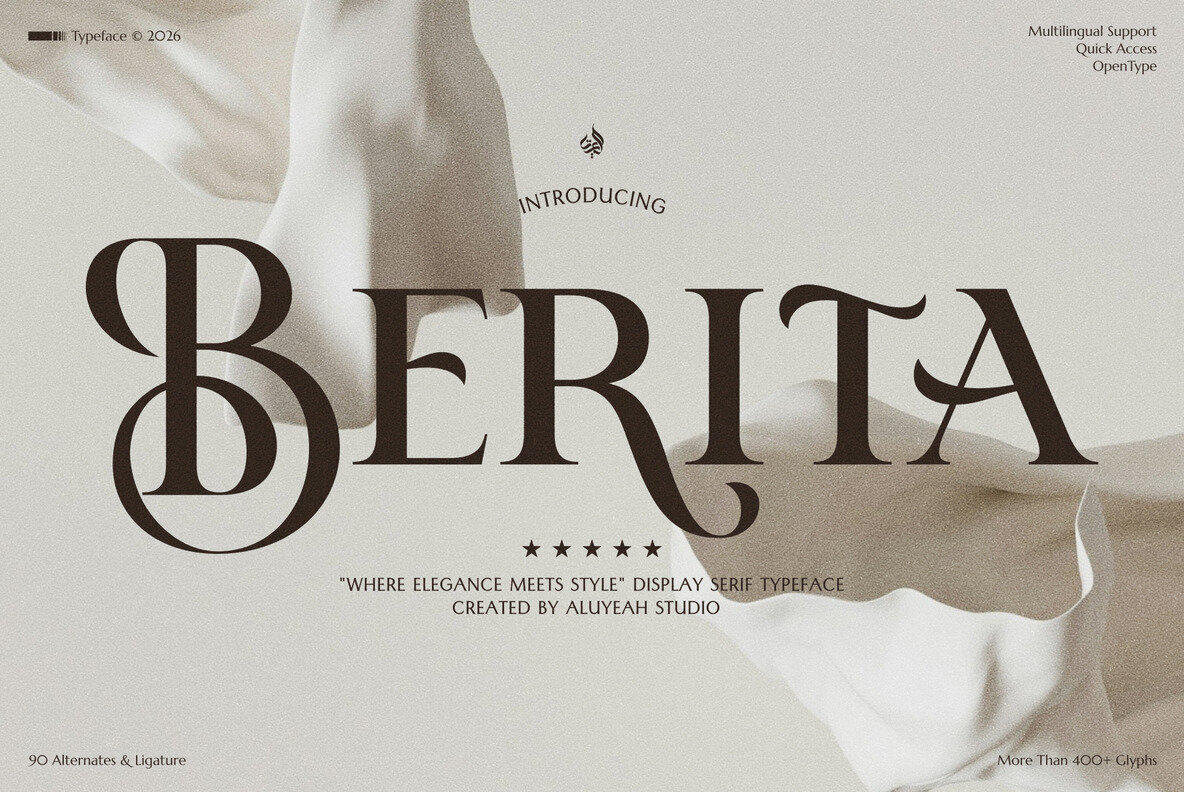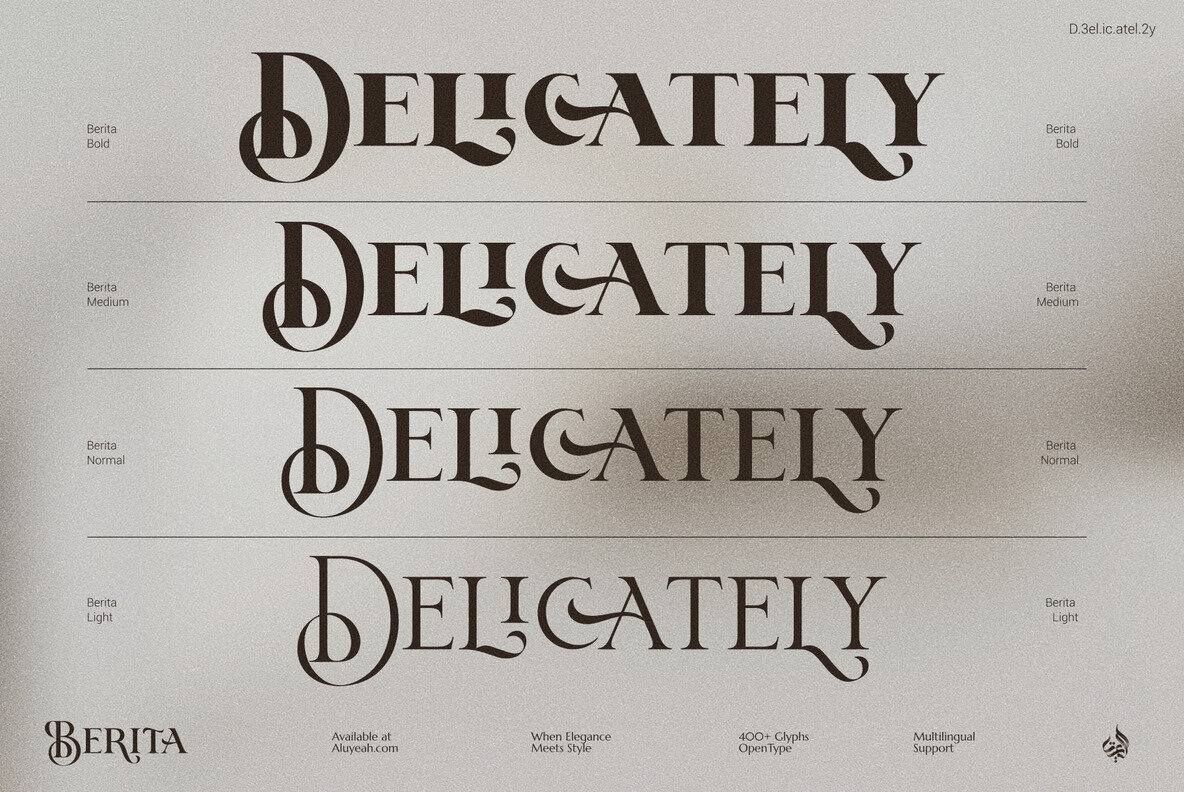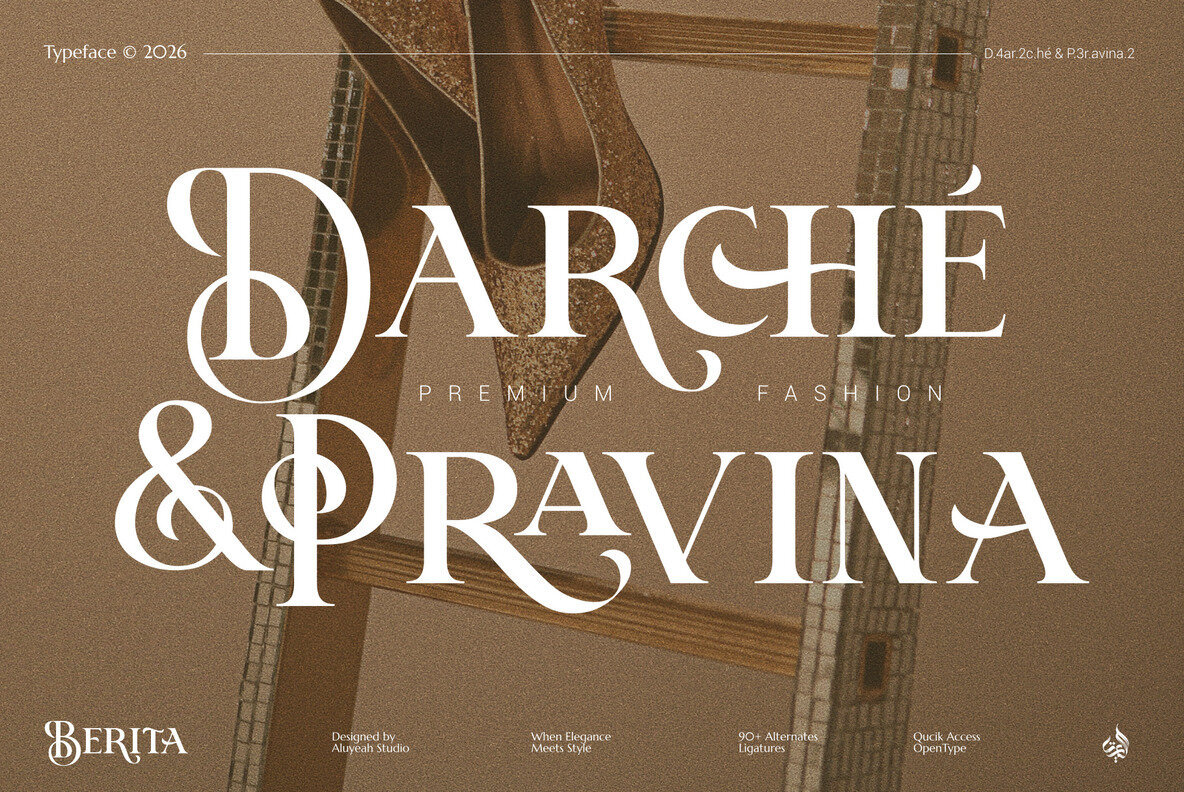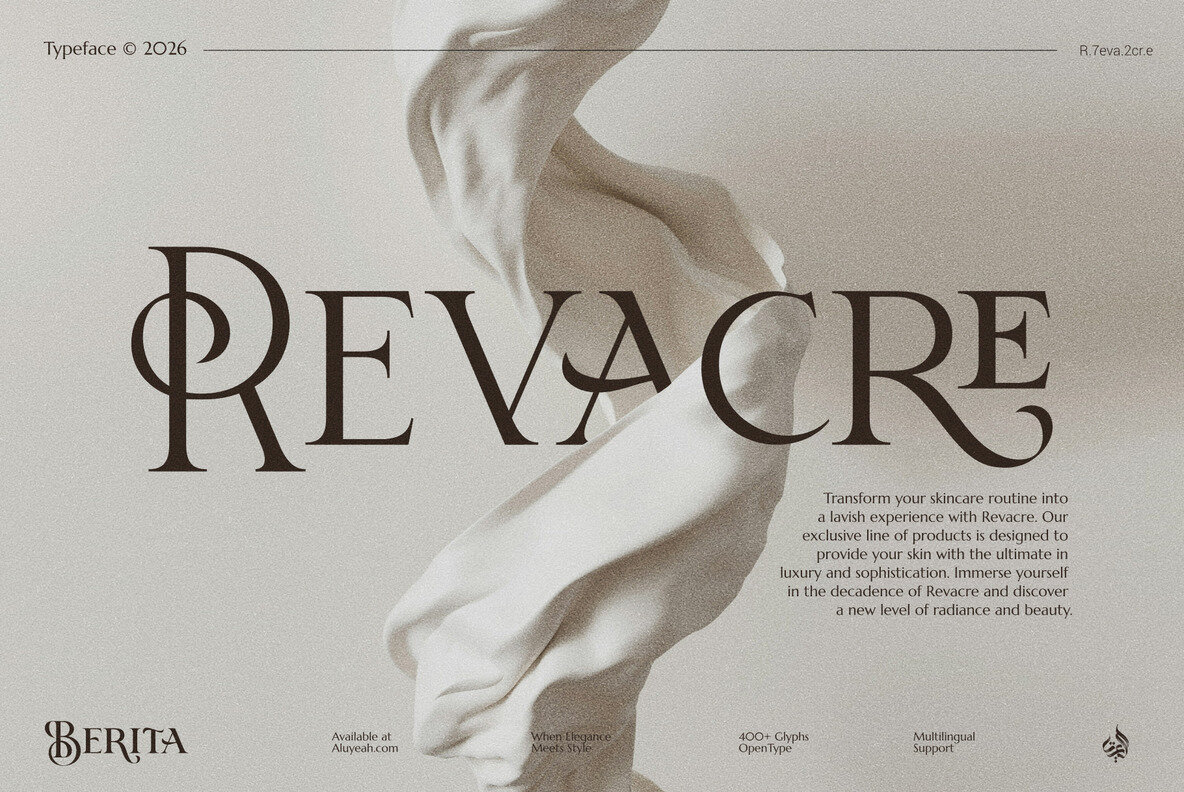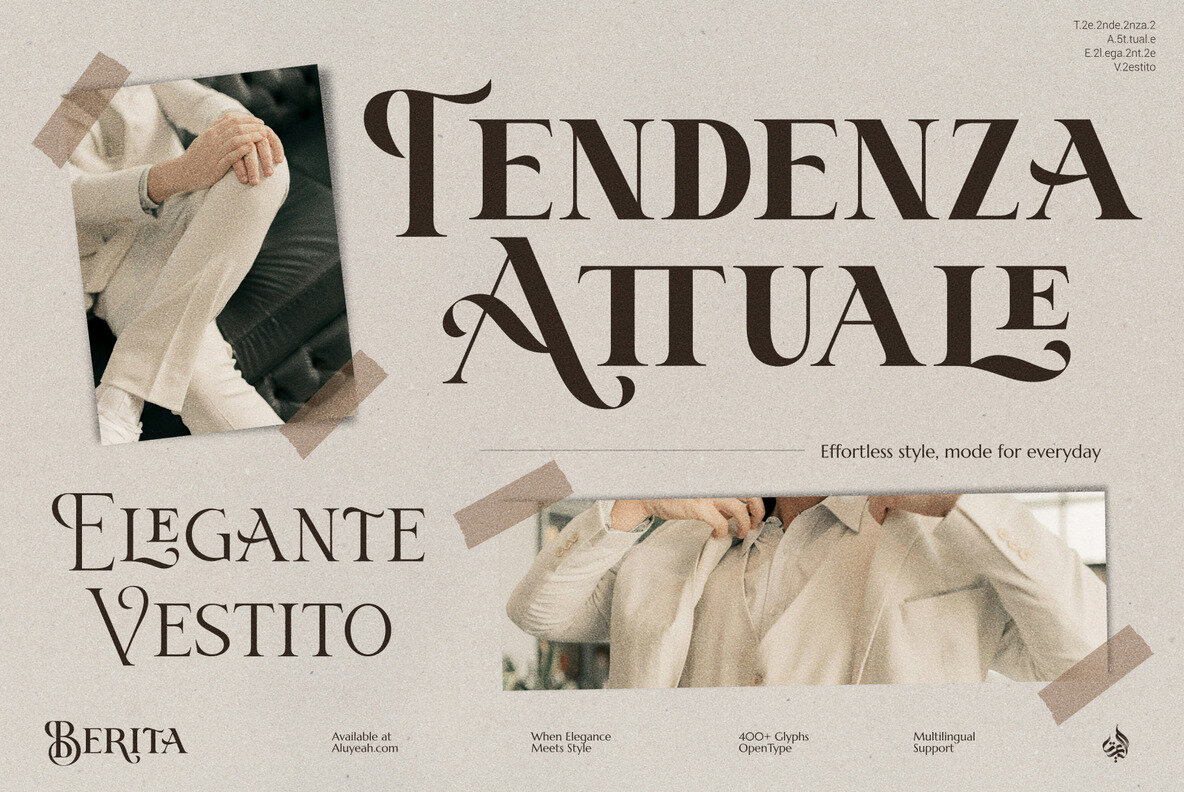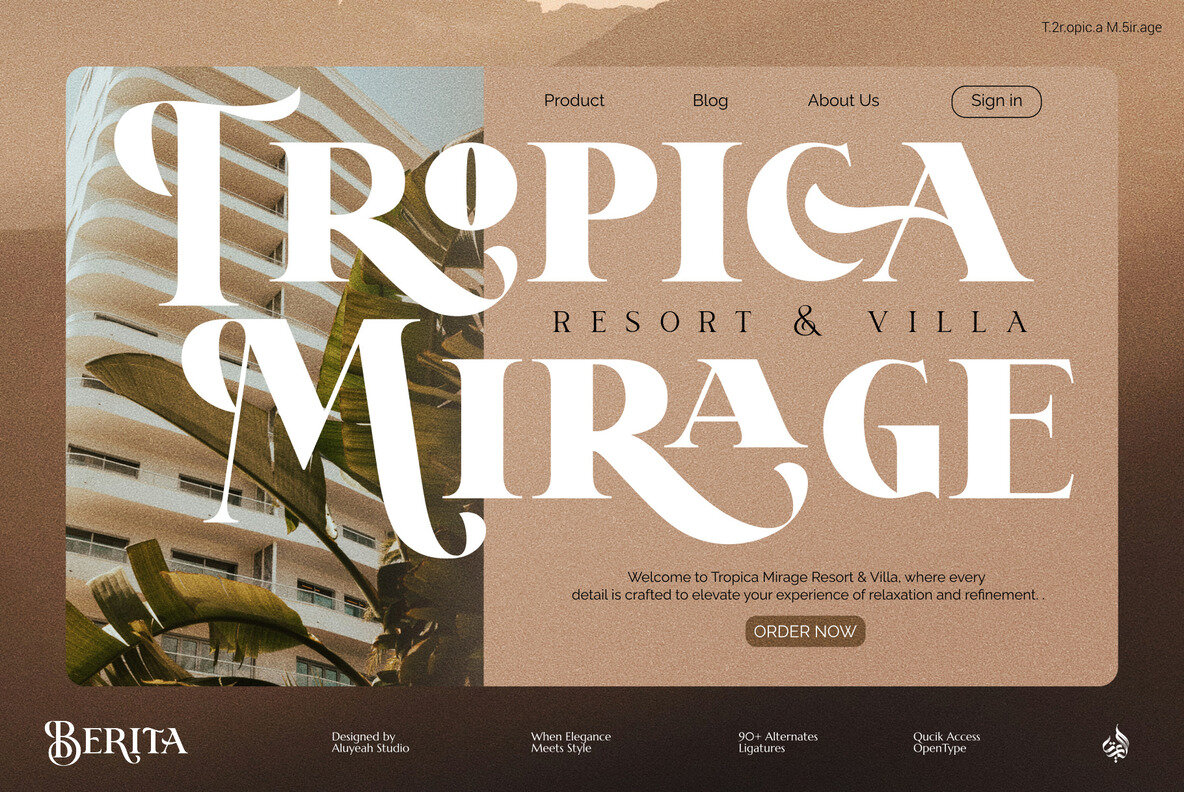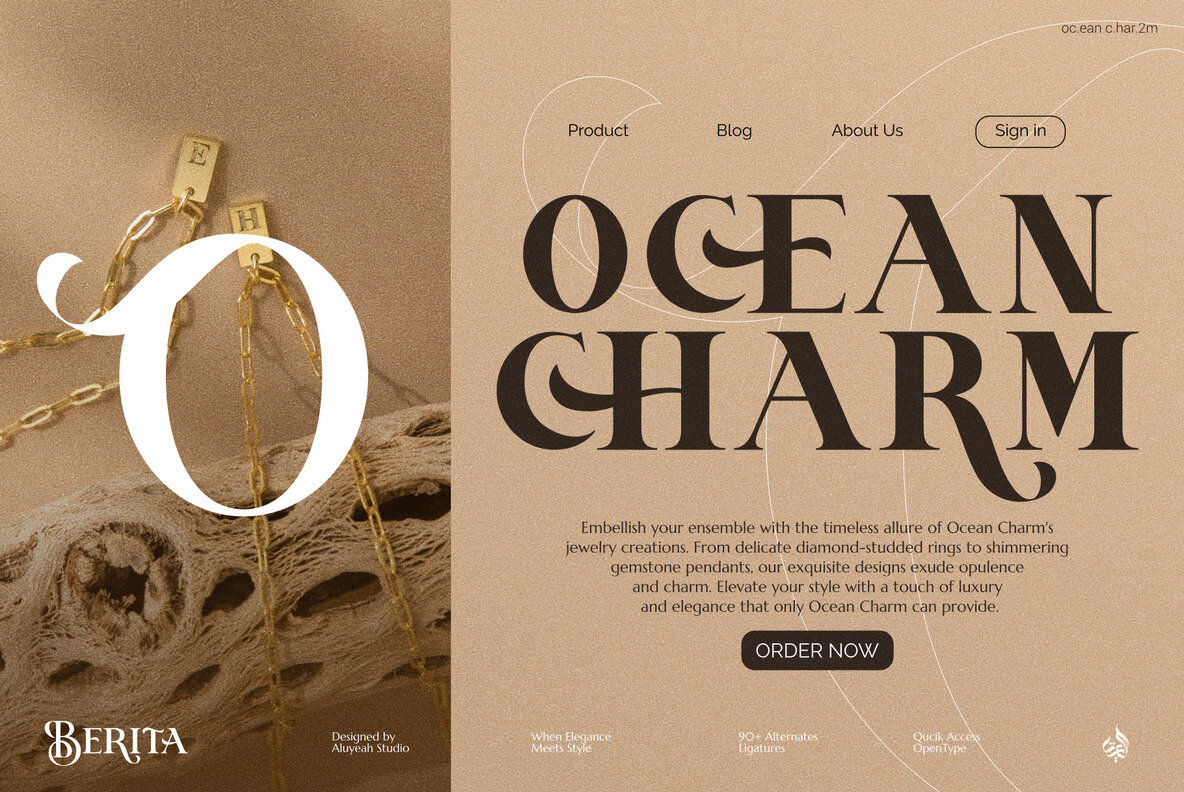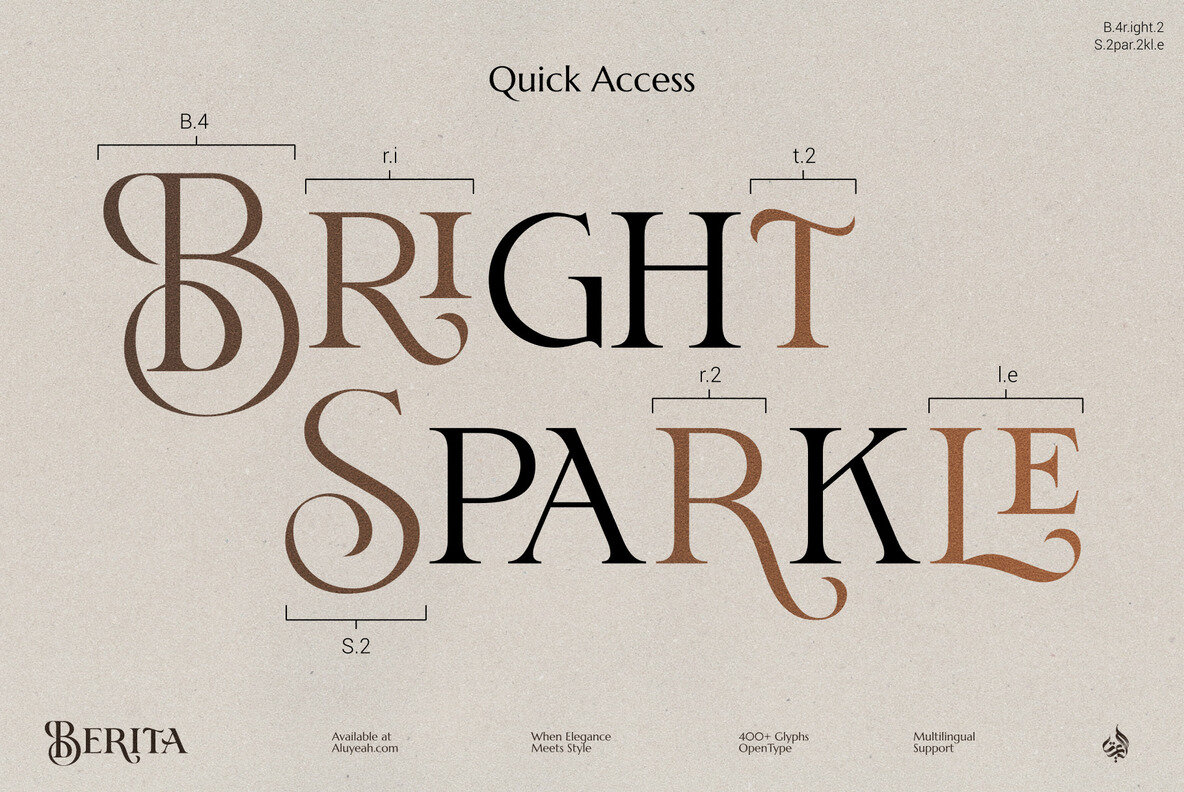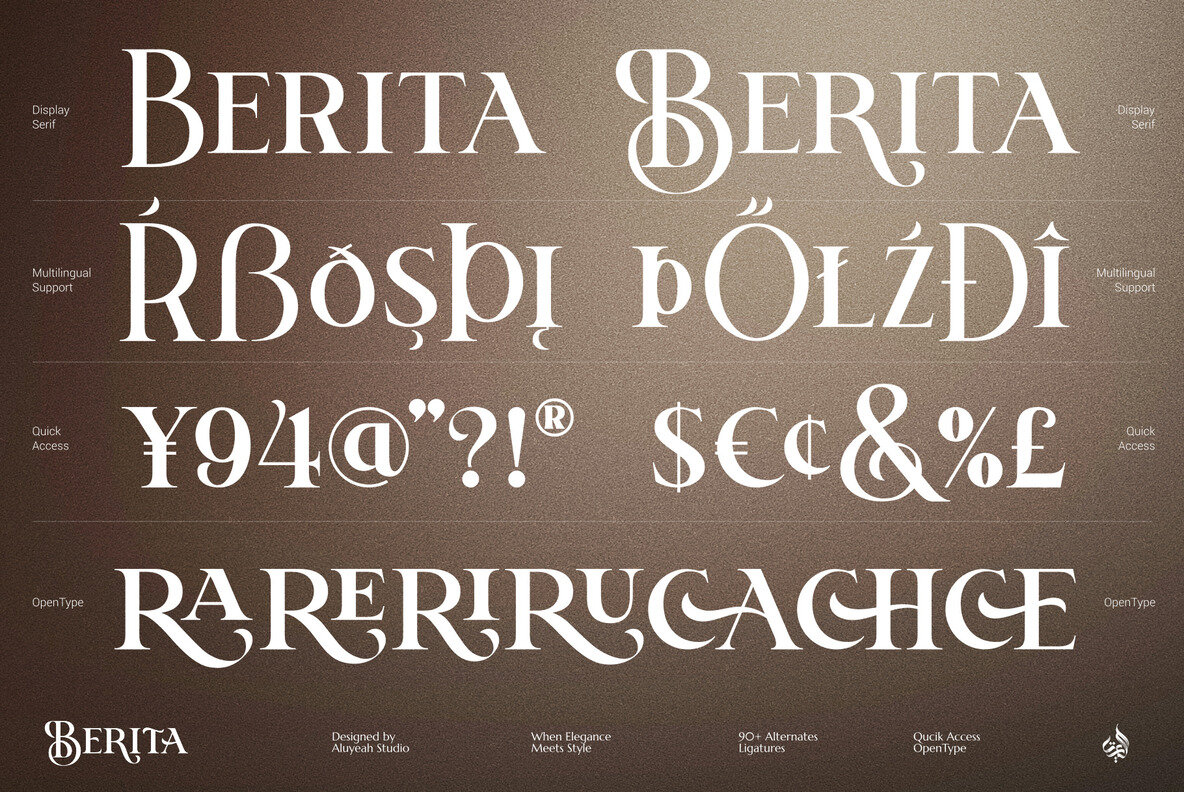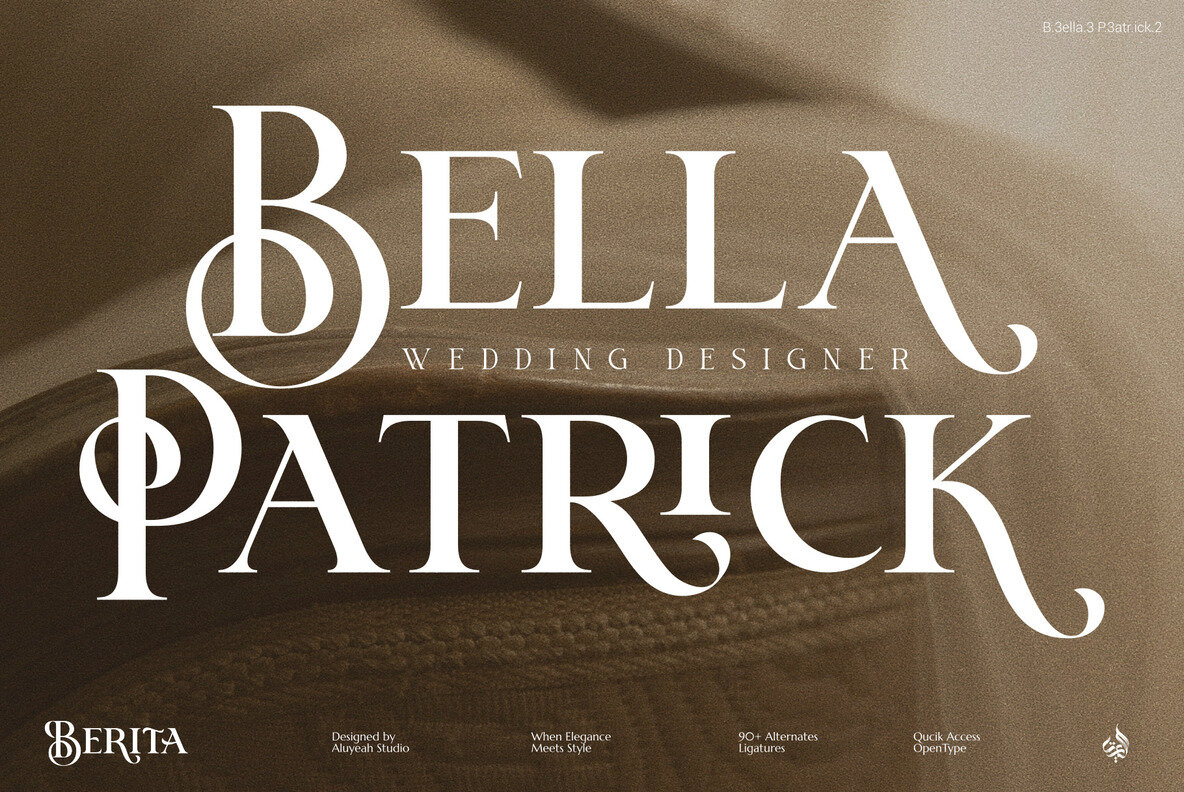
Berita Font
Berita stands out as a refined display serif, designed for those who appreciate both visual elegance and effortless usability. Each character is shaped with precision, offering graceful curves and sophisticated flourishes that bring classic charm to any project. Whether designing invitations or developing branding assets, Berita adapts with ease—adding an elevated touch to both digital and print layouts. This typeface is thoughtfully equipped with OpenType features and supports 67 languages, making it a versatile option for global audiences. Berita also includes intuitive quick-access combinations for over 90 alternate glyphs and ligatures, allowing for seamless customization directly within your chosen design software. Its functionality meets style, ensuring that both experienced designers and beginners can work confidently and efficiently.Berita: A Distinctive Display Serif for Elegant Designs